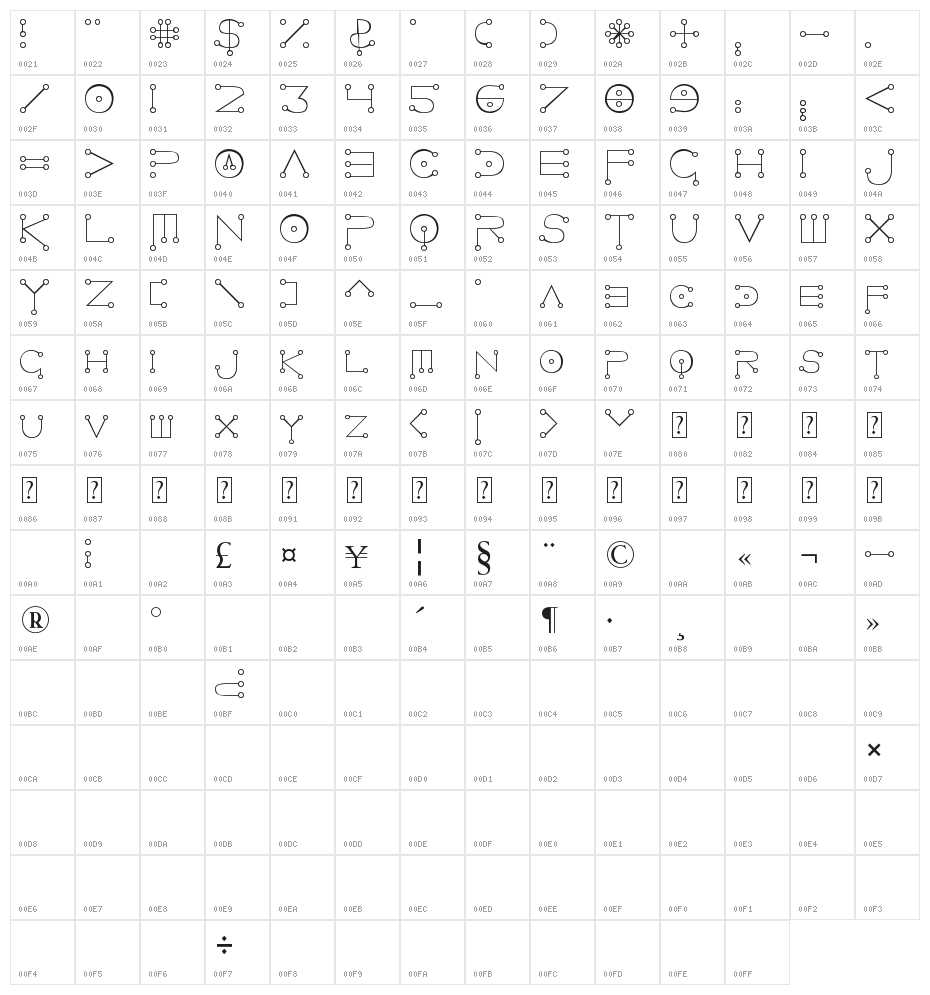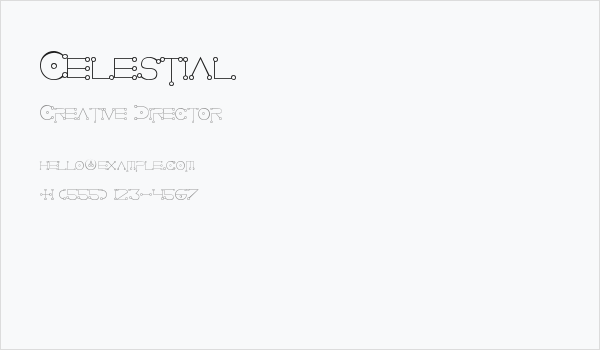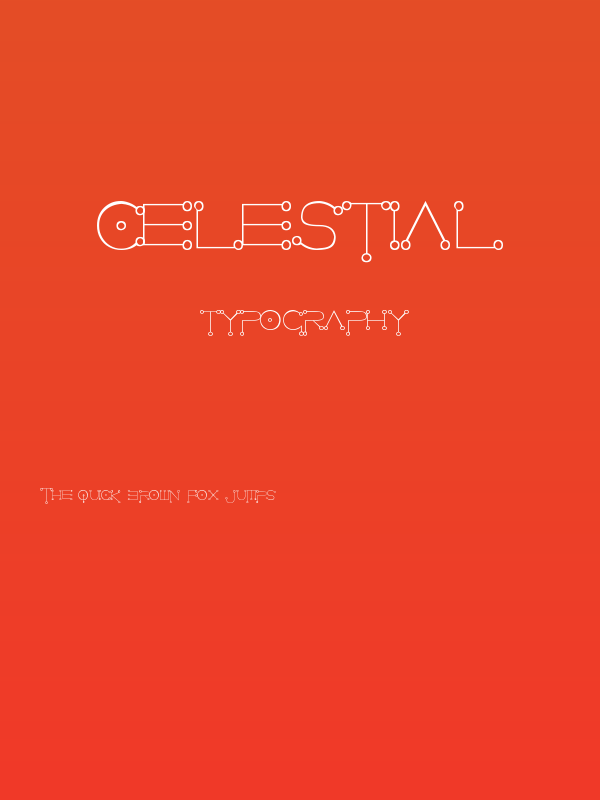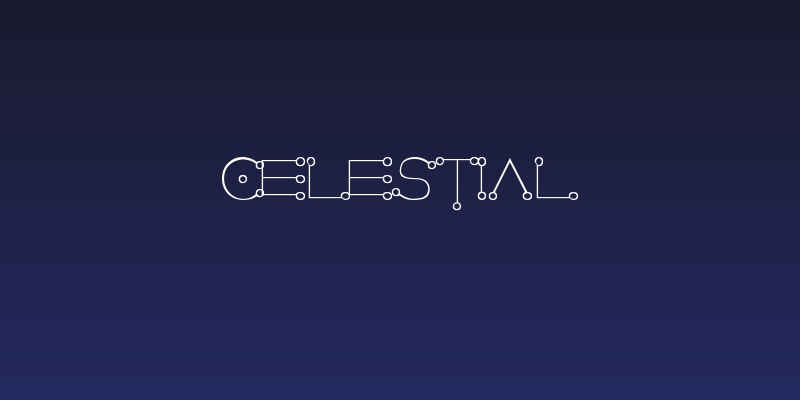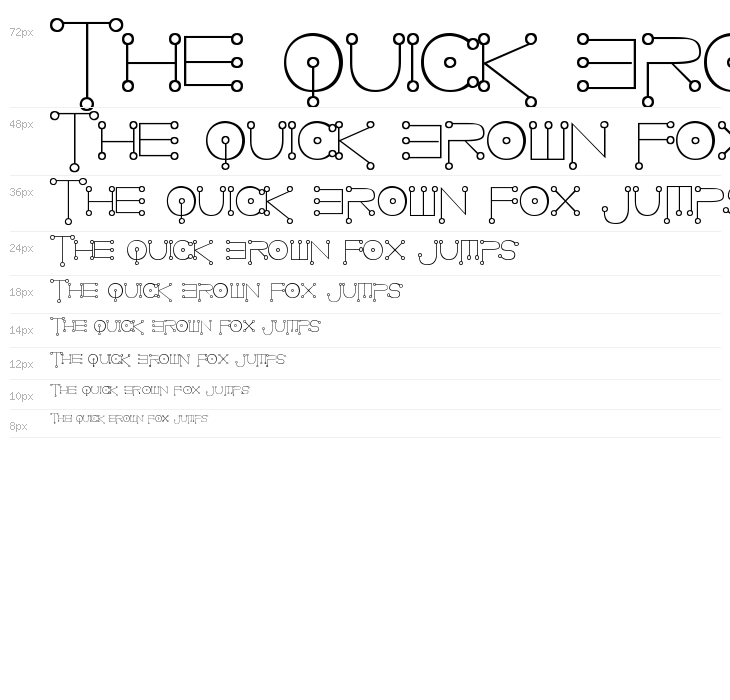
Celestial Font
Celestial Description
This font features a futuristic and geometric design, characterized by its unique use of circles and lines to form each character. The letters and numbers are constructed with a series of dots connected by thin lines, creating a circuit-like appearance. This design gives the font a high-tech and modern feel, reminiscent of digital or electronic interfaces. The characters are evenly spaced, with a consistent structure that maintains readability while offering a distinct visual style. The special characters follow the same design principles, integrating seamlessly with the alphabet and numerals.
| Proposed Projects | Ideal for tech-themed projects, sci-fi book covers, digital interfaces, and modern branding. |